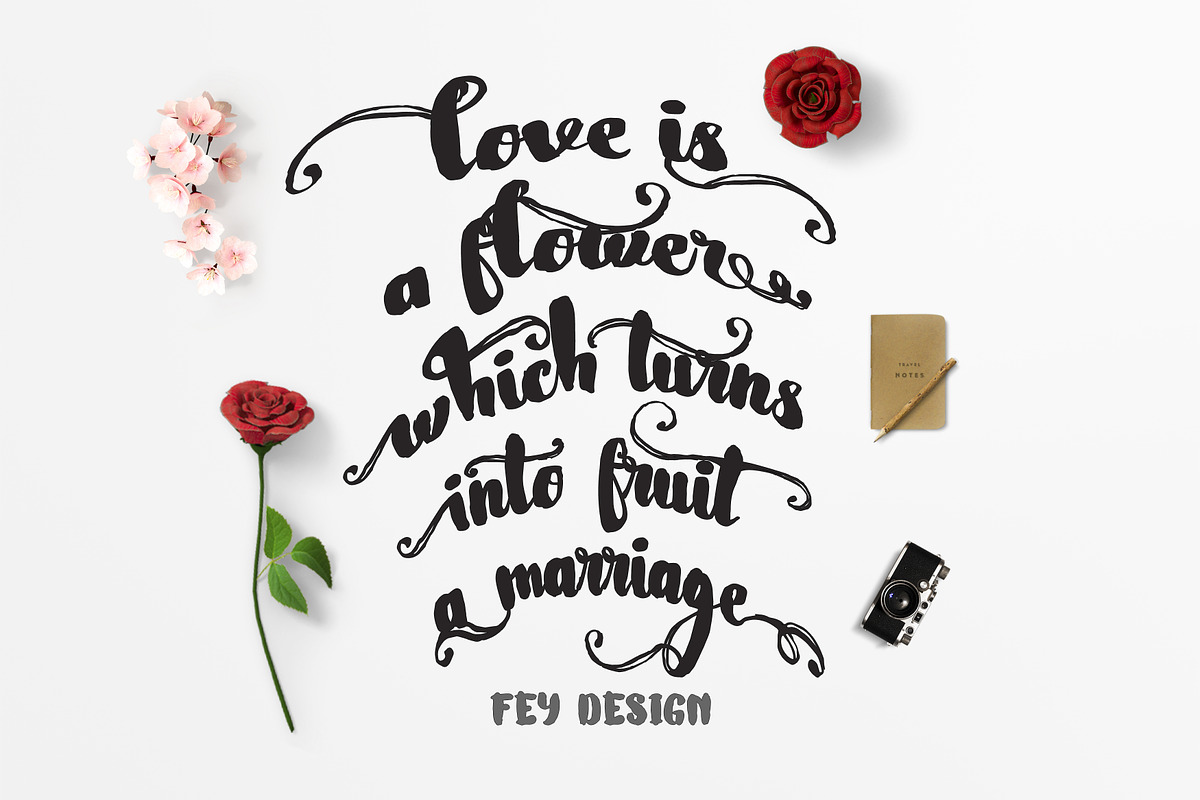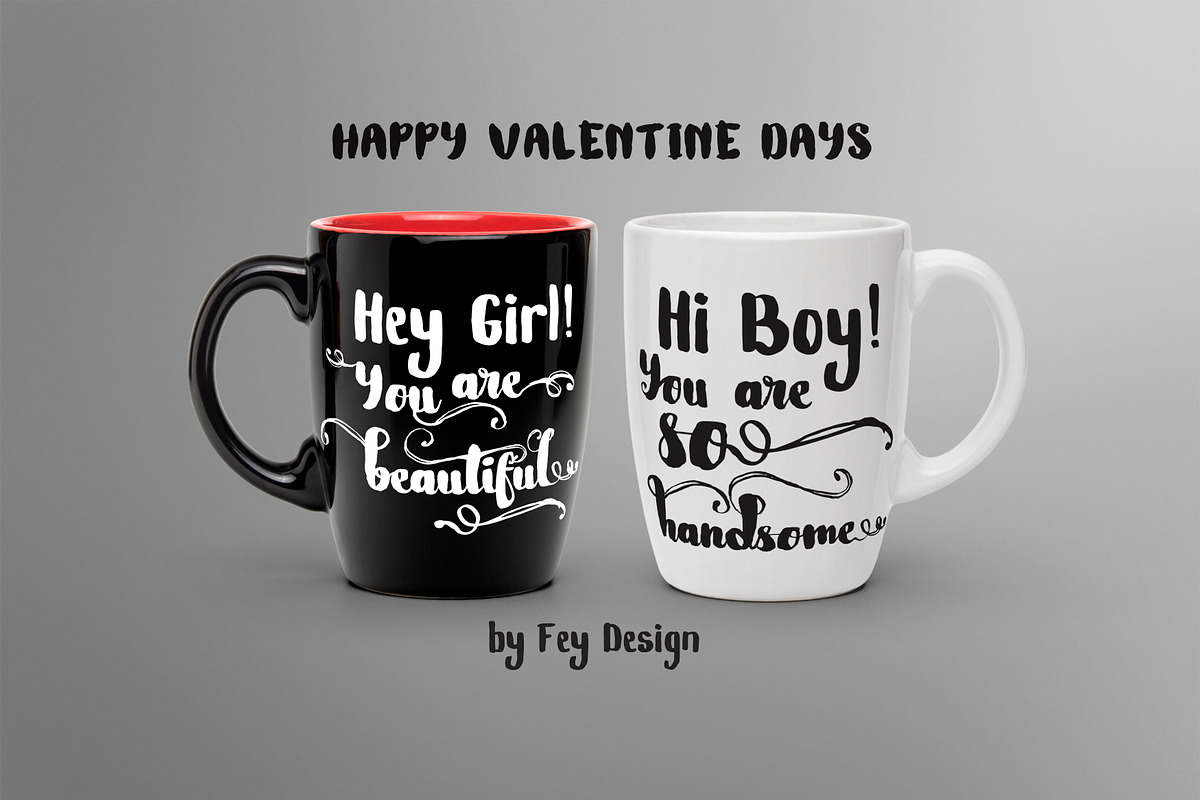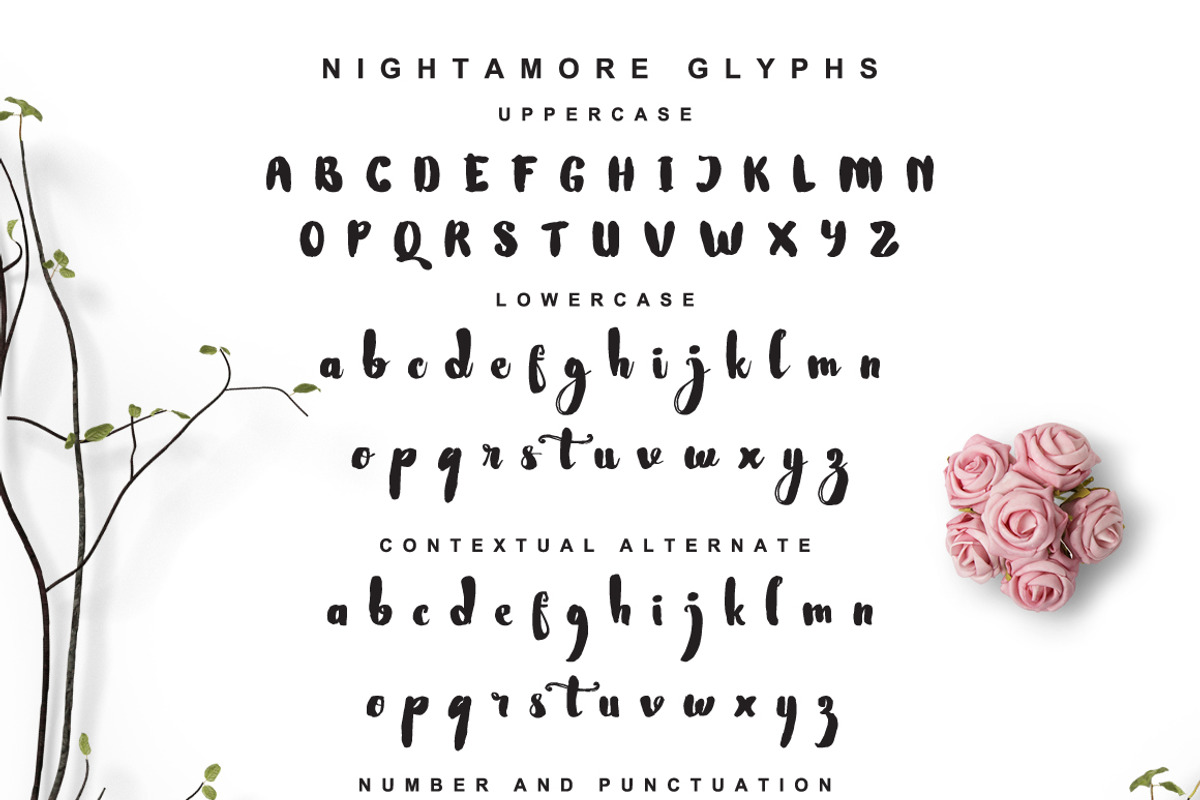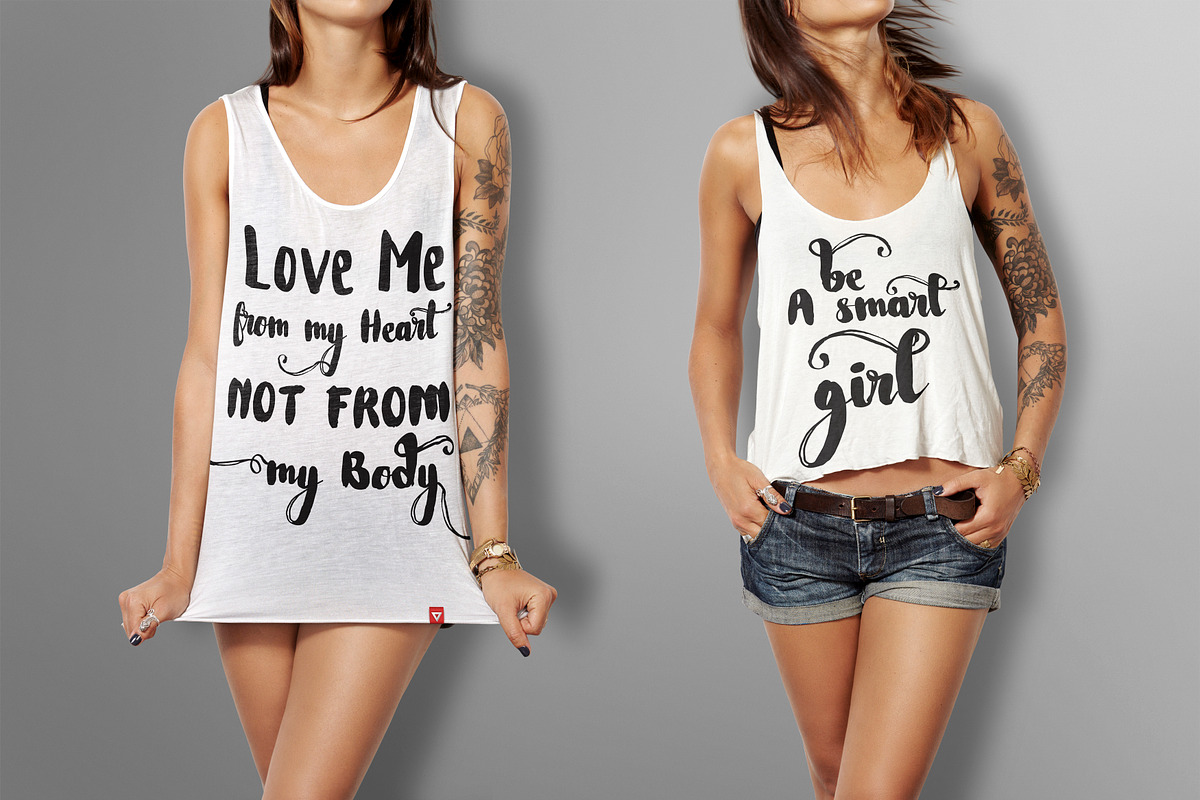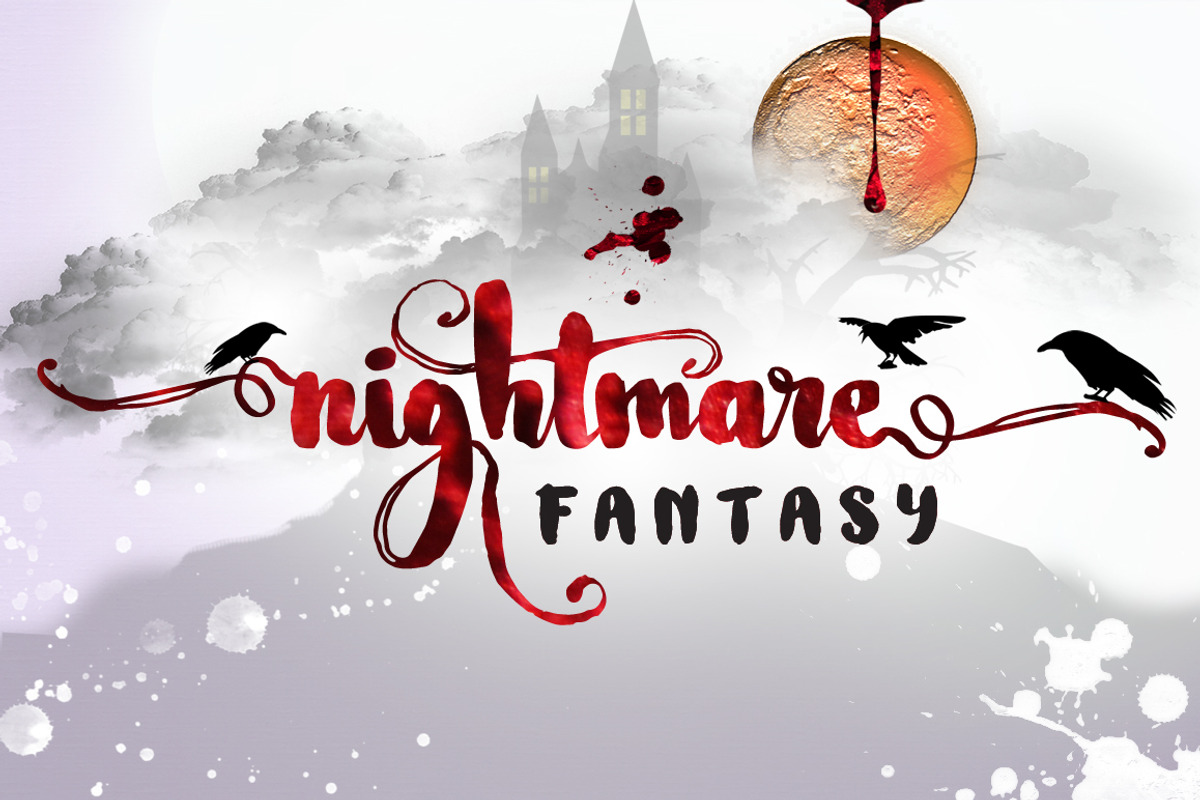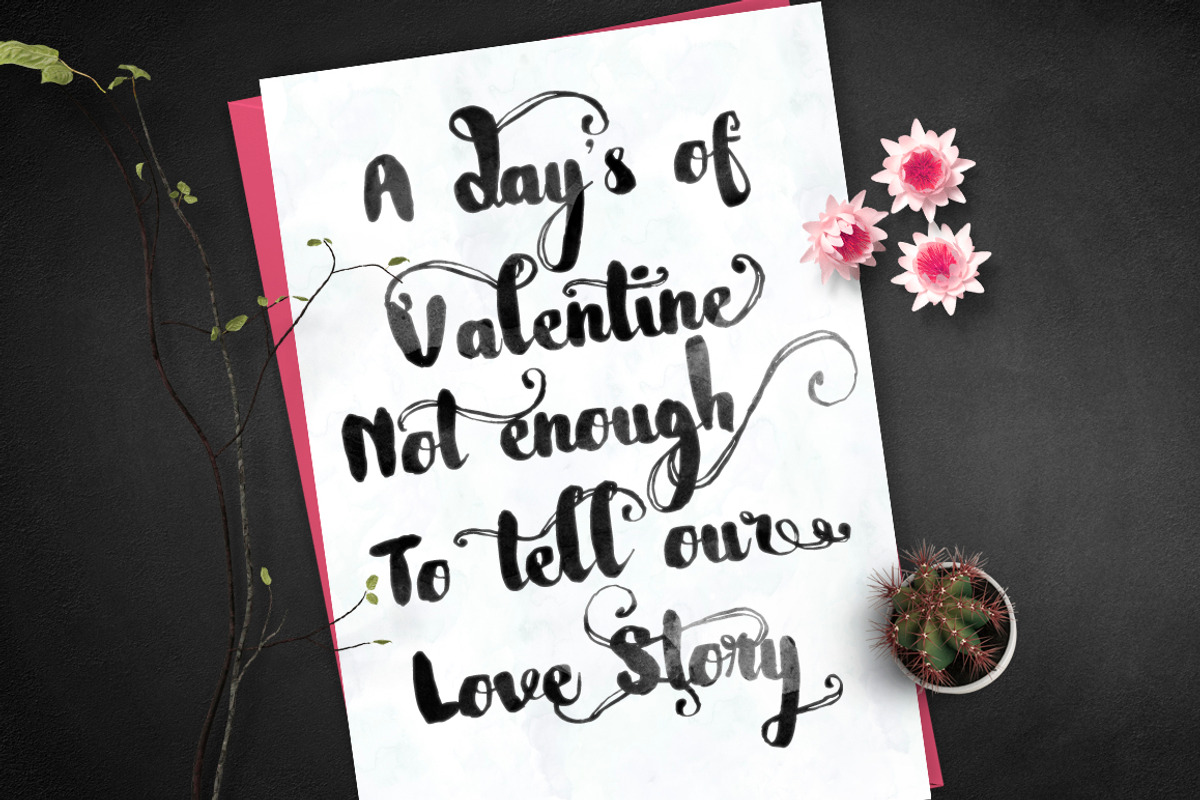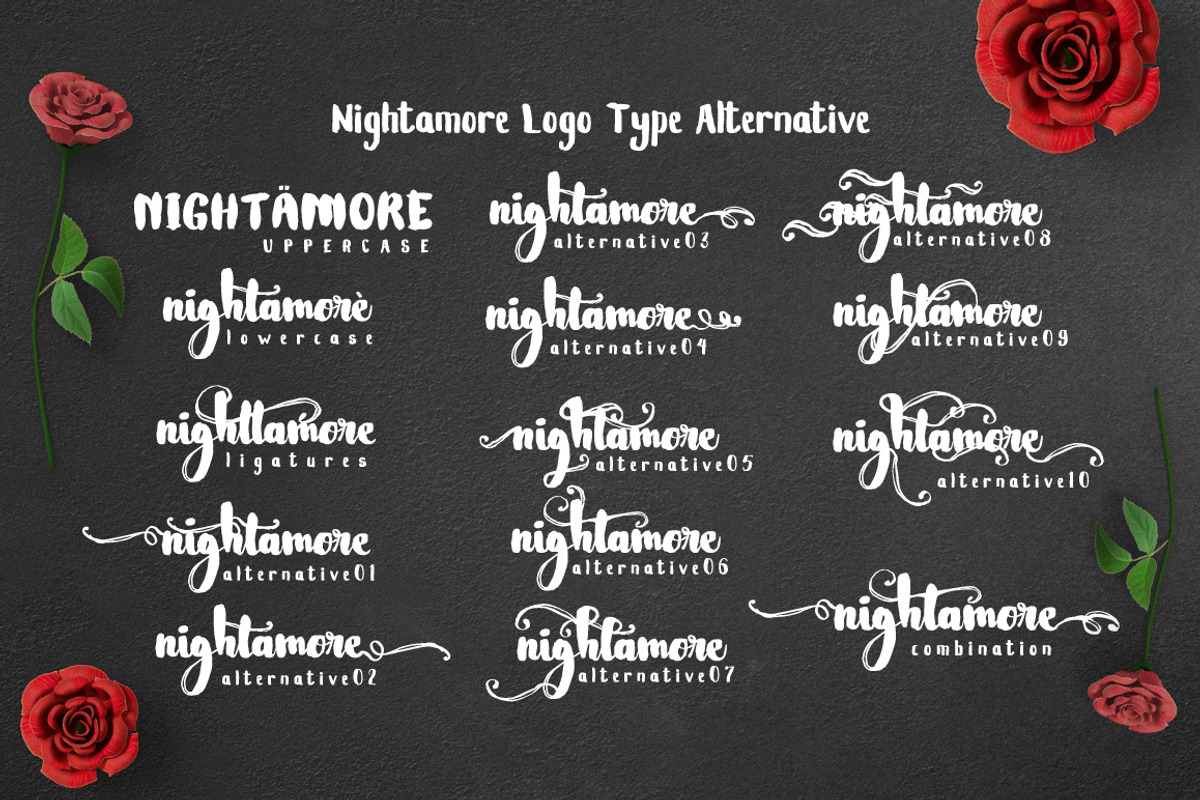
Nightamore Brush + Bonus Font
Nightamore Brush + Bonus Font by FHFont is a font selected for branding, posters, packaging, typography.
Why Nightamore Brush + Bonus Font is worth a look
Nightamore Brush + Bonus Font by FHFont fits naturally into Branding, posters, packaging, typography.